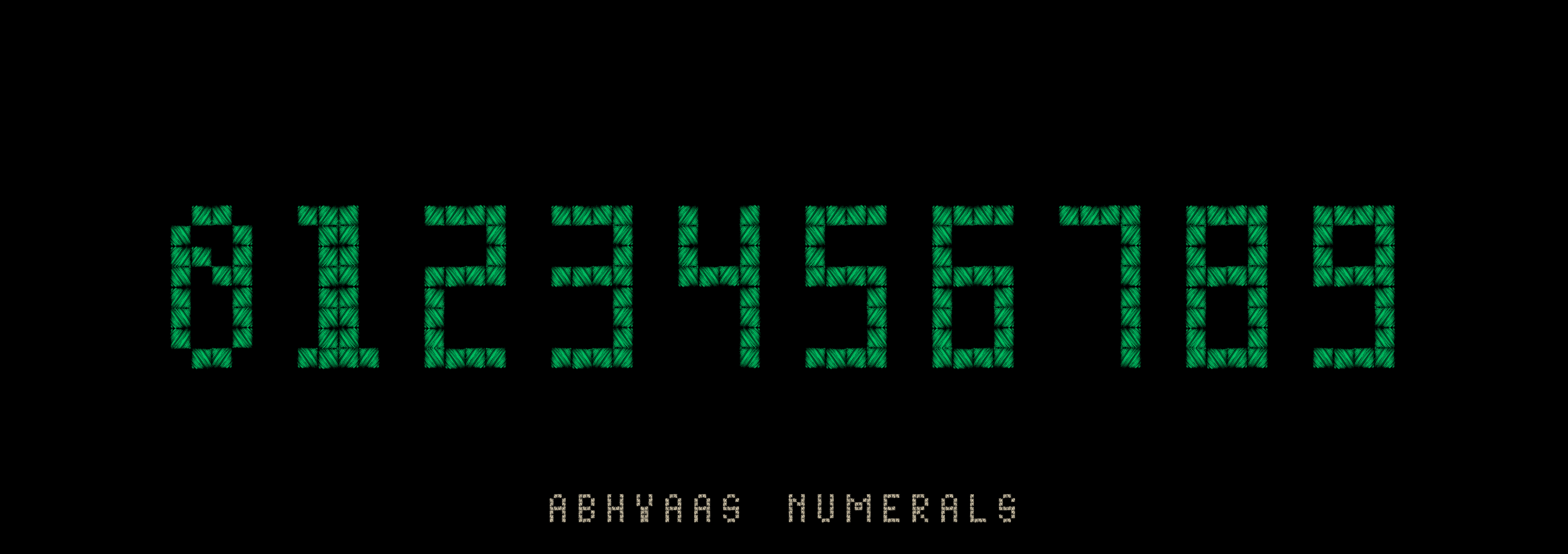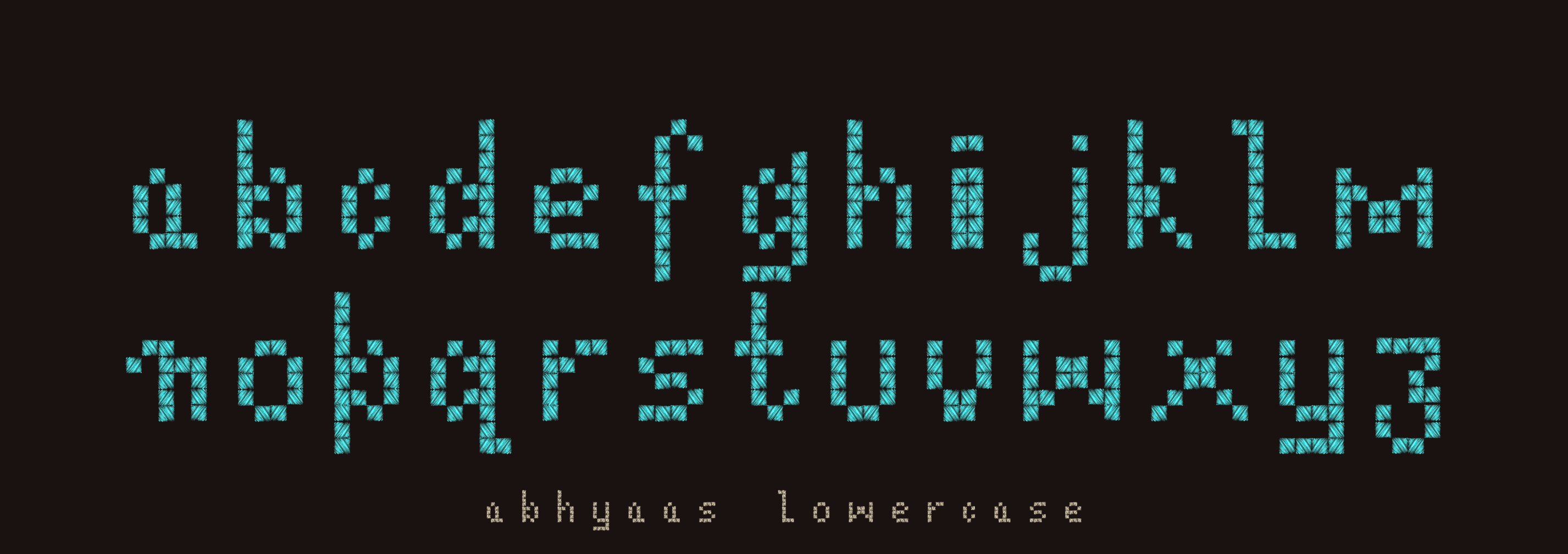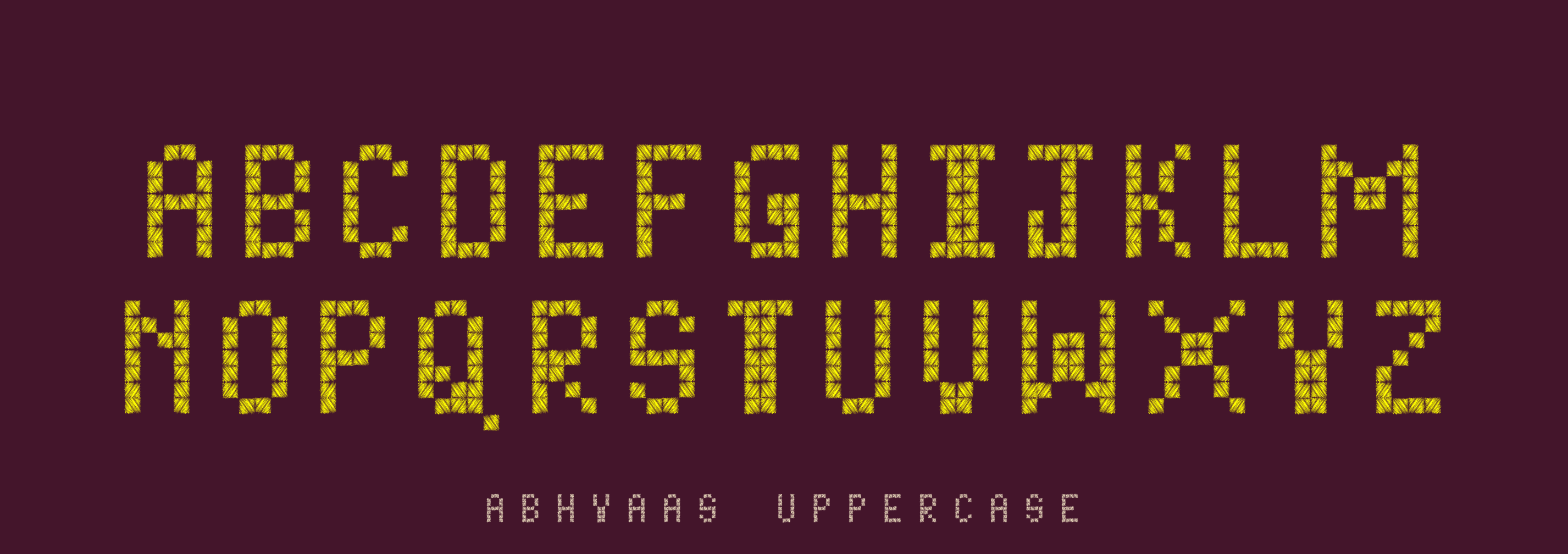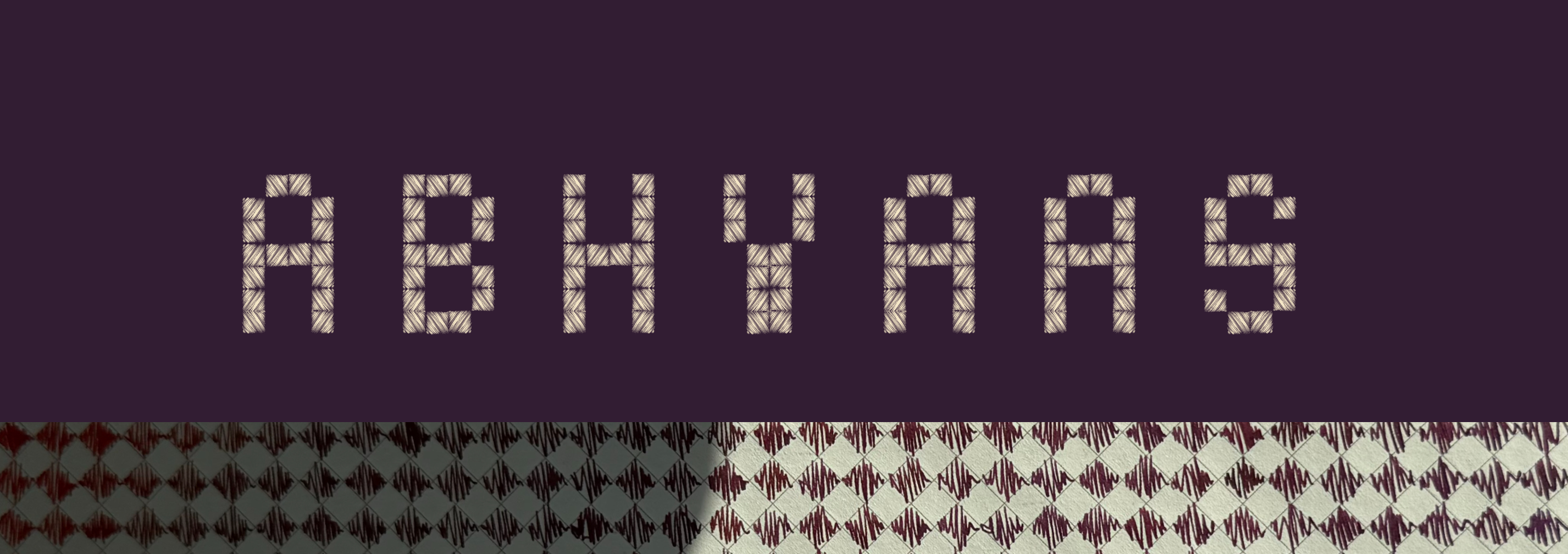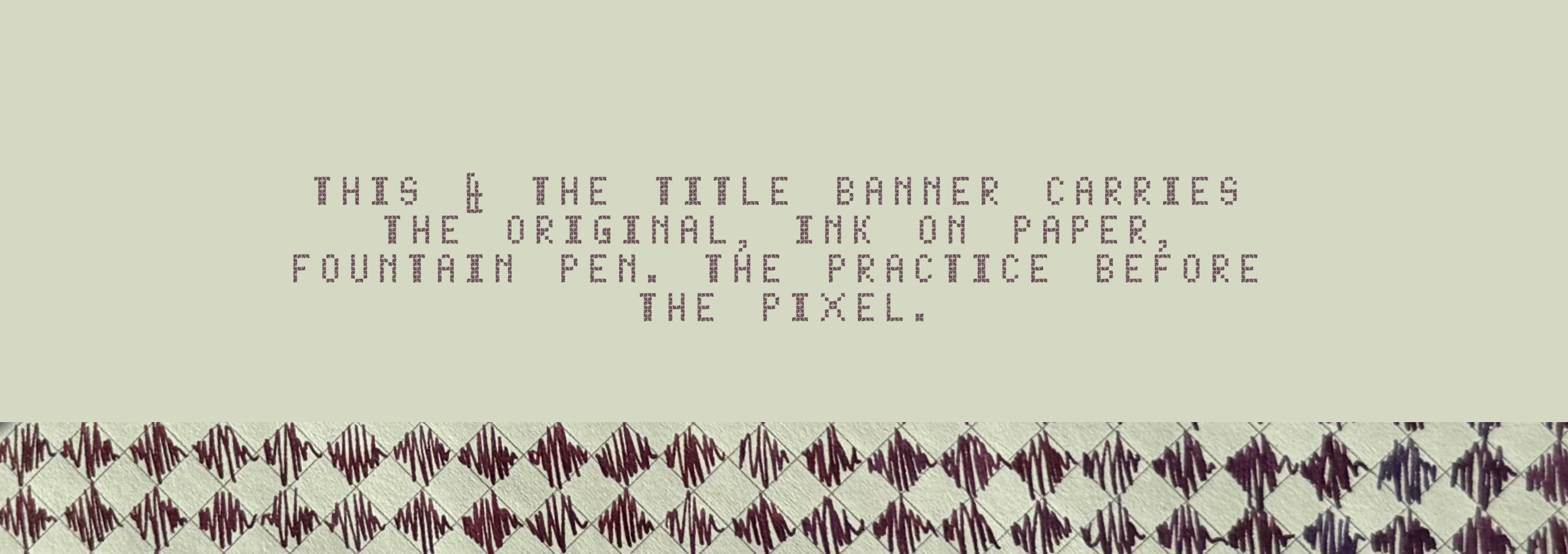
ABHYAAS SO-AND-SO
Call it pigment. Call it pixel.
It's up to the beholder.
For what it is, it is the sacred scribble from mind. Like a singer's riyaaz, this is a designer's Abhyaas.
Each scribble wants to be a pixel, wants to be pigment, but all it is, is present. A gesture that isn't a word yet. Complete without needing to be.
Every letter is carved from a complete field of practice marks. The grid was filled first. The letter was found inside it. The practice came before the form, as it always does. The uncarved field? That's the space. Present and not, all at once.
It unveils uniquely, at different scales of thought. However it beholds for you, it's equally for you.